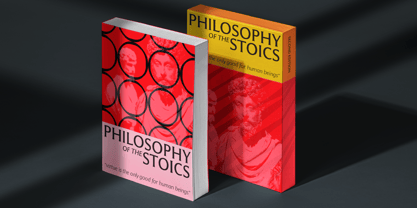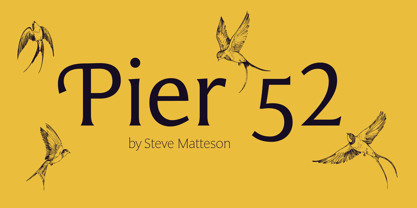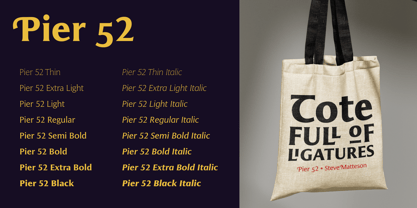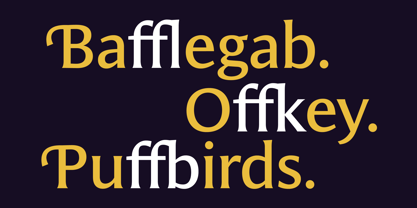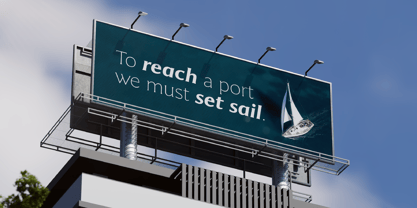
The Pier52 Font Family was designed by Steve Matteson and published by Matteson Typographics. Pier52 contains 16 styles and family package options. More about this family
Pier 52 is an incised serif typeface family with a refined elegance for display and text. The distinguished letterforms recall sign painter lettering on institutional buildings and landmarks. The slight contrast in weight and even proportions make Pier 52 a versatile text family for web or print publishing. Pier 52 was designed by Steve Matteson in 2024.
Steve Matteson is a veteran type designer based in Louisville, Colorado. With over 100 type designs to his name spanning corporate branding to whimsical display designs, Steve has a genuine love of letterforms and their communications potential. He has founded Matteson Typographics to publish new custom and commercial typefaces including the Aptos family for Microsoft Office. He finds inspiration in letter press printing, music and the outdoors. Enjoy these typefaces for their utility, their roots and their carefully crafted quality.